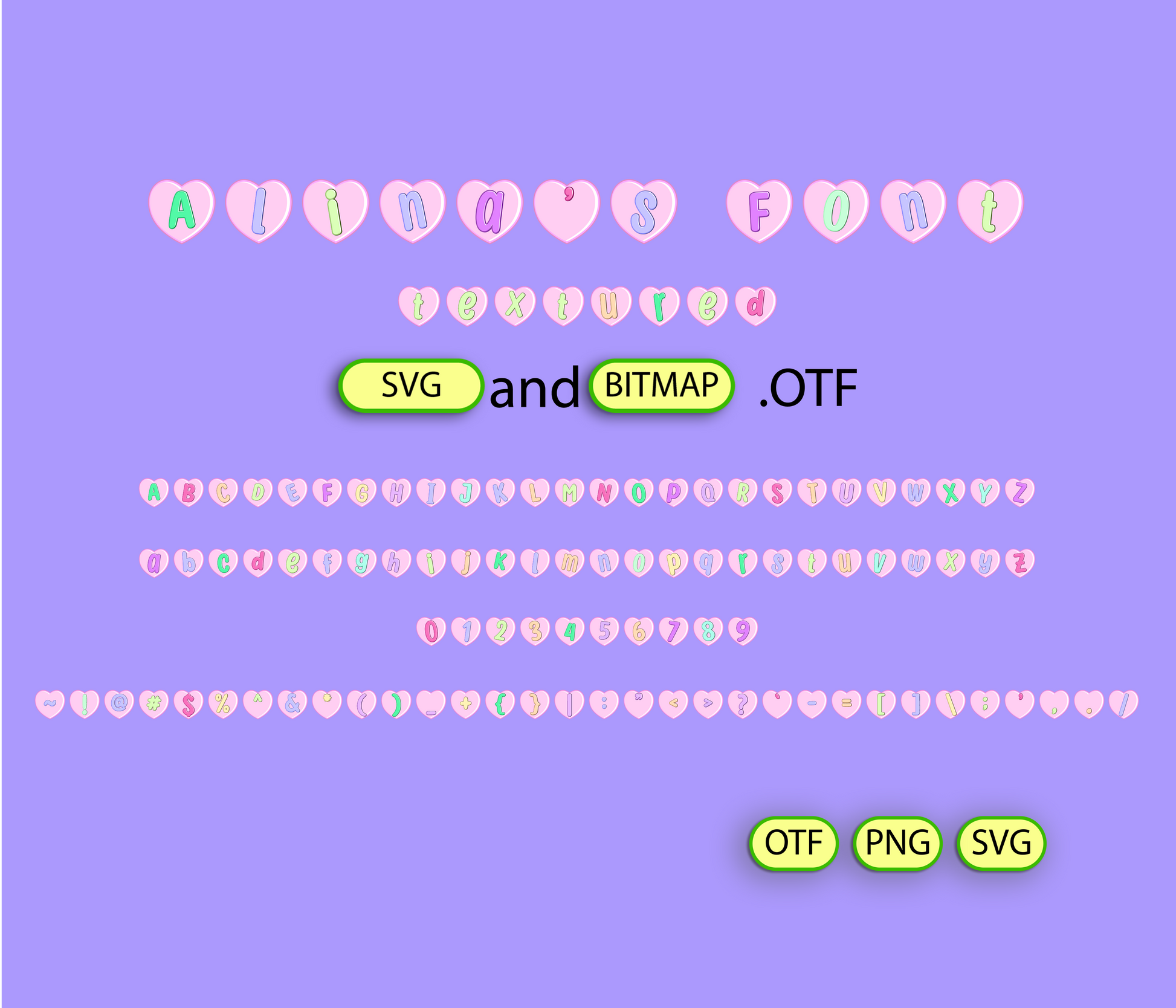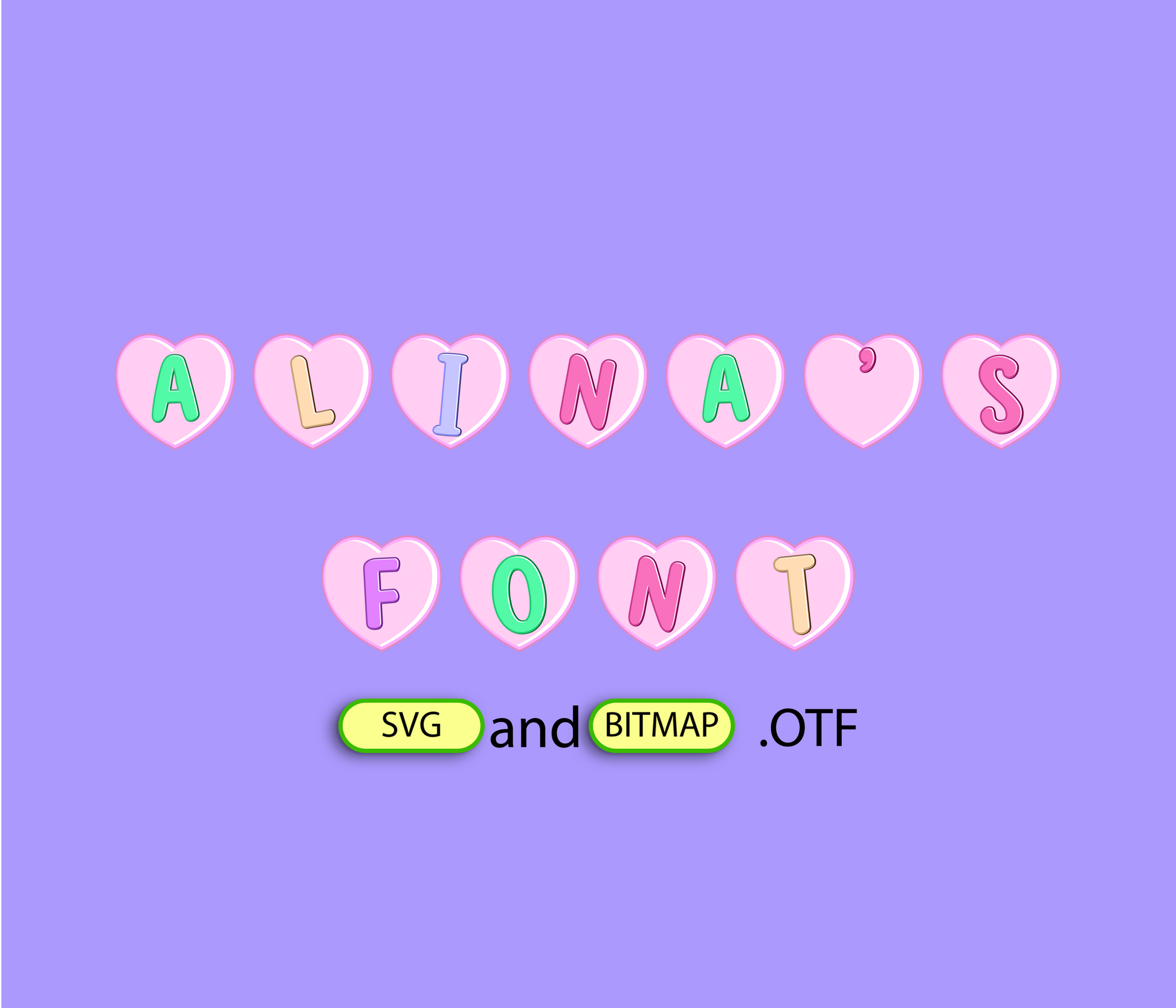
Friendship Palette for Girls Banner Font Textured
Girls' Bond Colorful Texture Font - Friendship Theme
Discover the essence of sisterhood with our Friendship color textured font, thoughtfully designed to celebrate the unique and enduring bonds of friendship among girls. This font reflects the vibrancy, warmth, and resilience of female friendships through its use of cheerful colors and engaging textures, symbolizing the laughter, support, and shared moments that define these relationships. Ideal for creating captivating social media content, heartfelt invitations, or empowering educational materials, the Friendship font adds a personal and uplifting touch to your projects, showcasing the beauty of connection and solidarity.
Optimized for Canva, this font enables users of all design skills to effortlessly incorporate the spirit of sisterhood into their digital designs. Acknowledging the diverse needs of our community, we've included a no-texture version of the font, ensuring smooth compatibility across all software and making it a flexible choice for various applications, from online campaigns to tangible creations. This adaptability allows the Friendship font to enhance your projects with its message of unity, resilience, and joy, regardless of the platform.
Featuring a comprehensive character set and a user-friendly design, the Friendship font is accessible to everyone, inviting users to celebrate and delve into the nuances of female friendships in their work. Whether you're commemorating special bonds, organizing a girls' empowerment event, or simply aiming to infuse your designs with the energy and support found in girl friendships, our Friendship color textured girls font, complete with its no-texture variant, enriches your creations with the essence of companionship and strength.
Friendship Banner Font